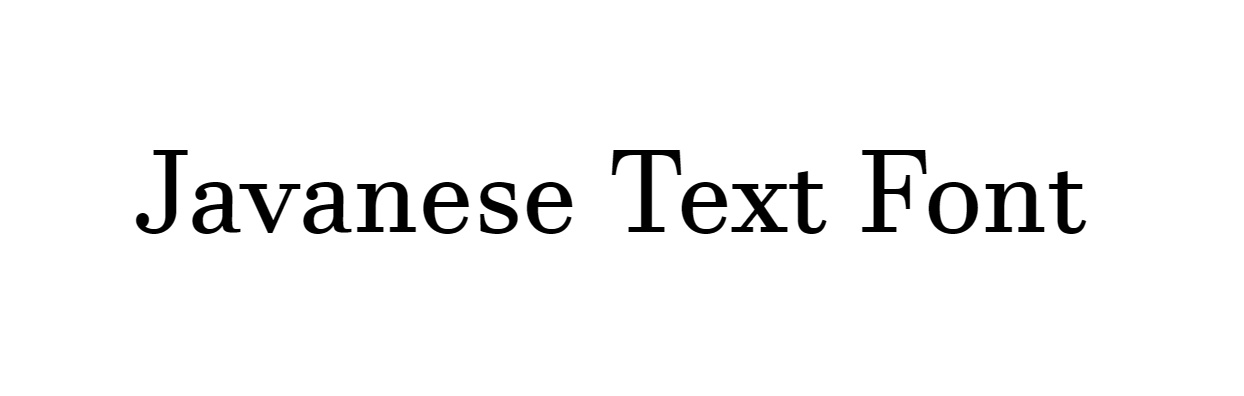
Javanese Text Font
Javanese Text is a serif font designed by John Hudson and published by Tiro Typeworks Ltd., for Microsoft Corporation. It has the traditional, bookish feel of type you see in novels, newspapers and long-established brands. You can download it for free and test it with your own words in the preview above.
What You Can Type With Javanese Text
You get every letter from A to Z in both cases and all the numbers from 0 to 9, which means Javanese Text can handle full sentences, dates and prices. Common punctuation such as &, !, ? and @ is included as well. It also has the accented letters you need for Spanish, French, German, Portuguese and Italian.
Where Javanese Text Works Best
Think of Javanese Text for book covers, magazine headlines and classic branding. Serif fonts shine in headlines and printed text. For long paragraphs on phones, check that it still reads well at small sizes.
Does Javanese Text support accented letters?
Yes. Javanese Text includes the accented letters needed for Spanish, French, German, Portuguese and Italian, so it works for more than just English.